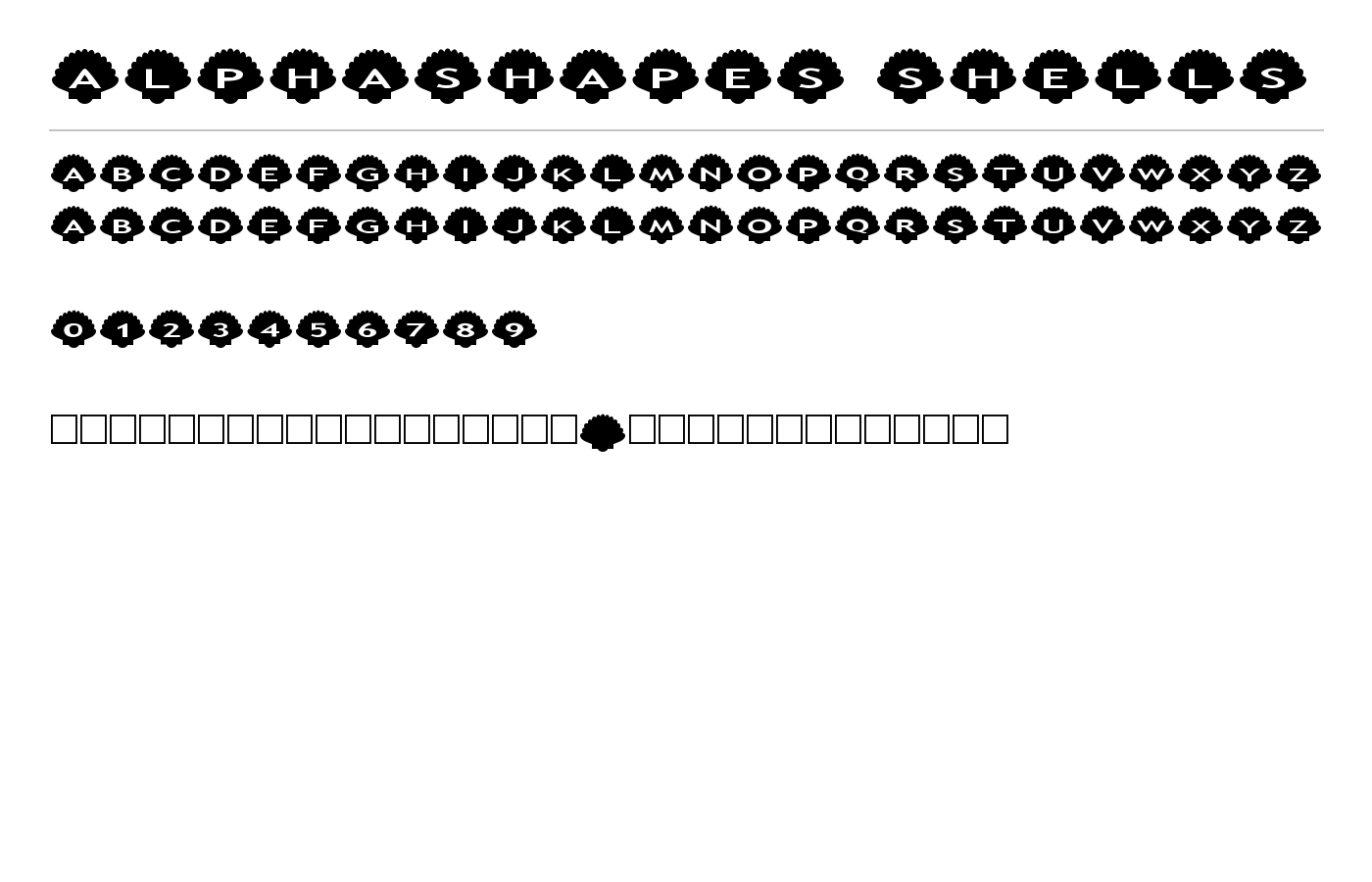
AlphaShapes Shells Font is a playful and decorative display typeface where each letter is encased within a scalloped shell shape, creating a bold and whimsical look. Its heavy weight and tightly packed shell outlines make it ideal for fun, eye-catching headlines or branding that wants to evoke a beachy, casual, or creative vibe. This font works best in decorative contexts like posters, logos, or themed packaging where unique character shapes add visual interest and charm.
AlphaShapes shells Font